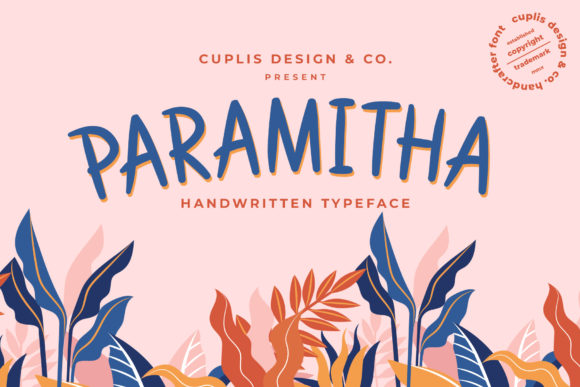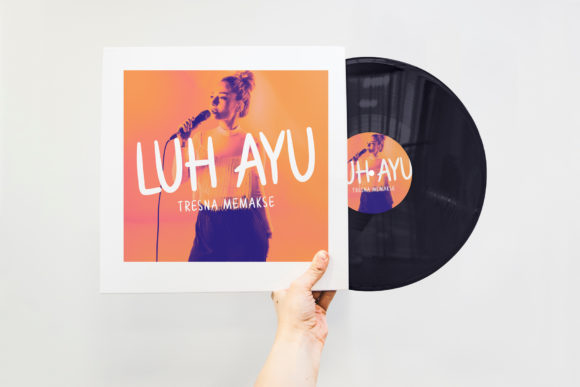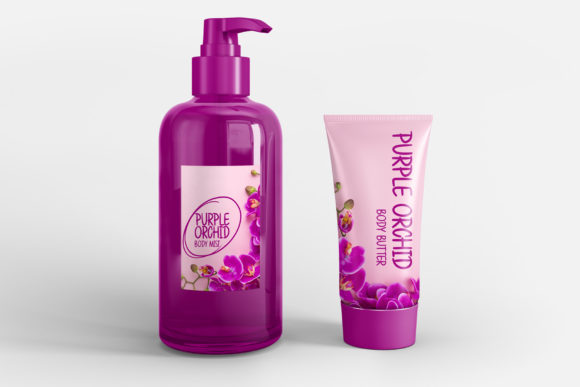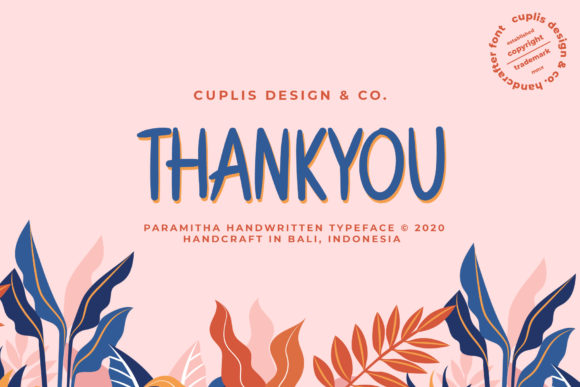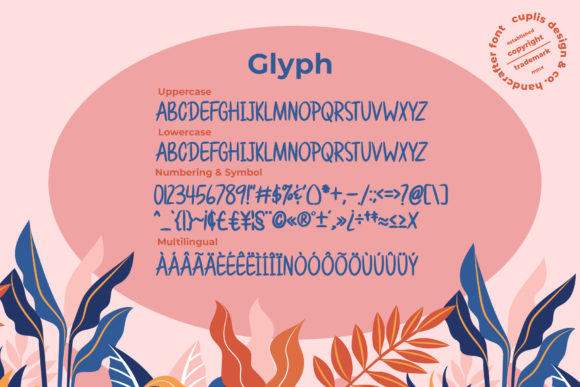
Paramitha Font
About Paramitha Font
Paramitha is a sweet and friendly handwritten font. Its natural and unique style makes it incredibly fitting to a large pool of designs. The only limit is your imagination!